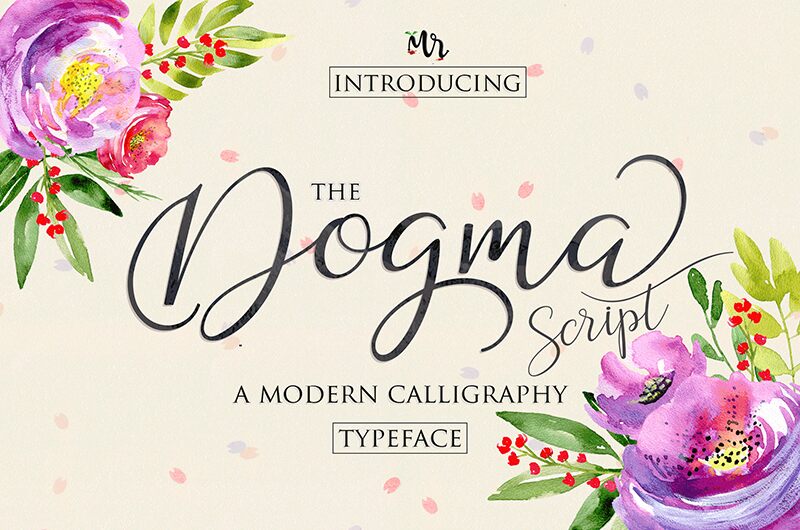
Dogma Script font is a kind of handwriting calligraphy with new and modern hand scratches. This typeface has been added with various alternative characters up to 439 glyphs. This type of writing is perfect for logos, fashion, stationery, magazines, menus, books, invitations, greeting cards, packaging, labels, apparel, marketing, business cards, etc.
Features:
Basic Latin A-Z and a-z
Numbers
Symbols
Stylistic Sets
Stylistic Alternates
Ligatures
Swash/Swirls
Dogma Script